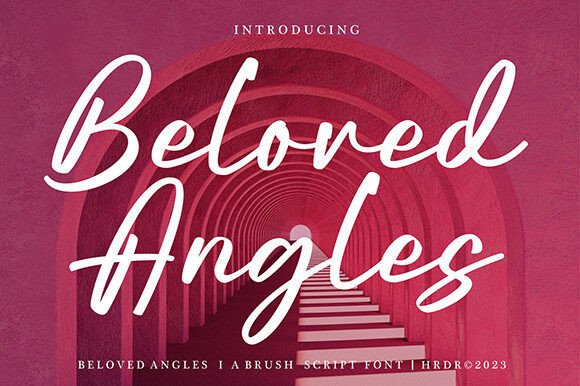
The Beloved Angles Font: A Designer’s New Best Friend
I’ll never forget the moment I stumbled upon the Beloved Angles Font while working on a wedding invitation project. My client had a very specific vision – elegant, yet playful, with a touch of whimsy. I had been searching for the perfect font for hours, trying out different script fonts, but none seemed to fit the bill. That was until I saw Beloved Angles Font. Its beautiful brush script style and effortless flow immediately caught my eye, and I knew I had found the one.
• ✨ Beautiful brush script style that’s perfect for creating elegant and playful designs
• ✅ PUA encoded, making it easy to access all the amazing glyphs and ligatures
• ✅ Highly versatile and can be used for a wide range of design projects, from branding to social media posts
• ✅ Easy to read and works well in both large and small sizes
While I absolutely love Beloved Angles Font, there are a few things to keep in mind. For example, ⚠️ some of the glyphs and ligatures can be a bit finicky to access, especially if you’re new to using OpenType features. Additionally, 🤔 the font may not work as well in very small sizes or in designs that require a lot of bold text.
The Designer Inspiration Behind Beloved Angles Font
Beloved Angles Font was created with the intention of capturing the elegance and playfulness of handwritten script fonts. The designer wanted to create a font that would be perfect for a wide range of design projects, from wedding invitations to social media posts. With its beautiful brush script style and effortless flow, Beloved Angles Font is sure to become a favorite among designers and crafters alike.
Q: What is Beloved Angles Font?
A: Beloved Angles Font is a beautiful brush script font that’s perfect for creating elegant and playful designs.
Q: Is Beloved Angles Font easy to use?
A: Yes, Beloved Angles Font is relatively easy to use, especially for those familiar with OpenType features and glyphs.